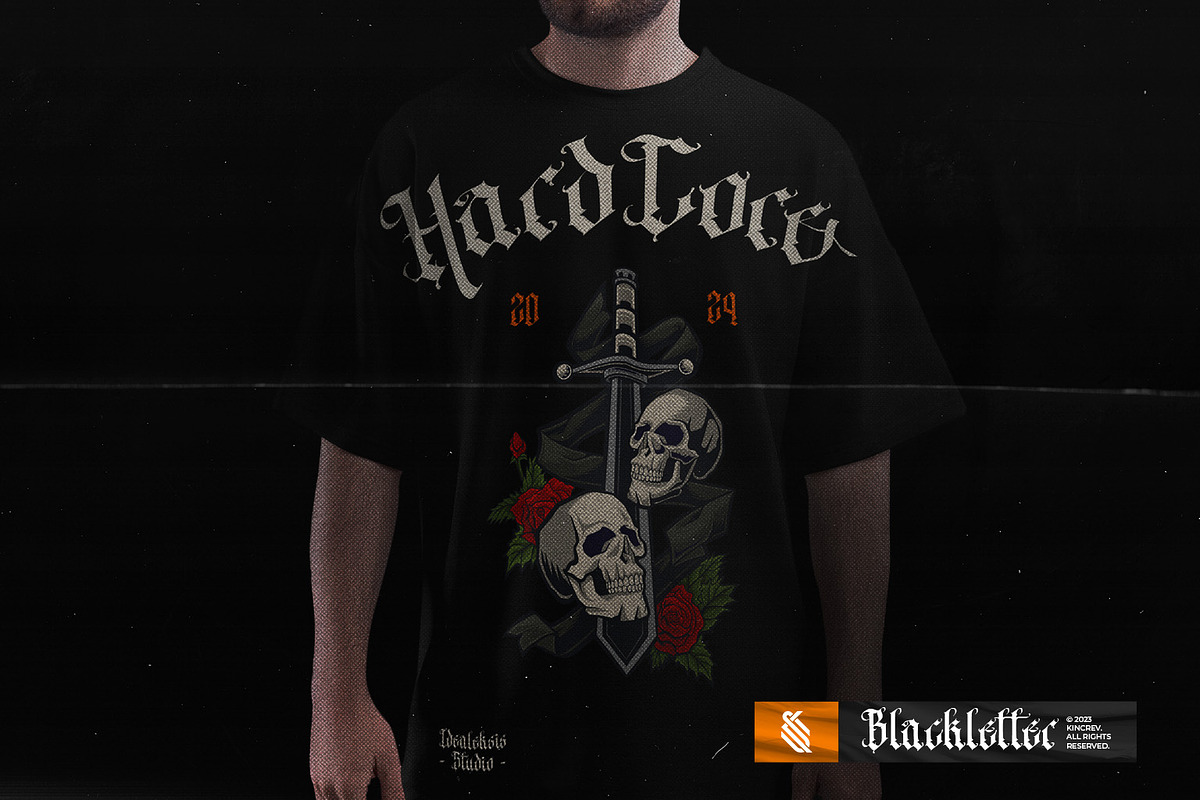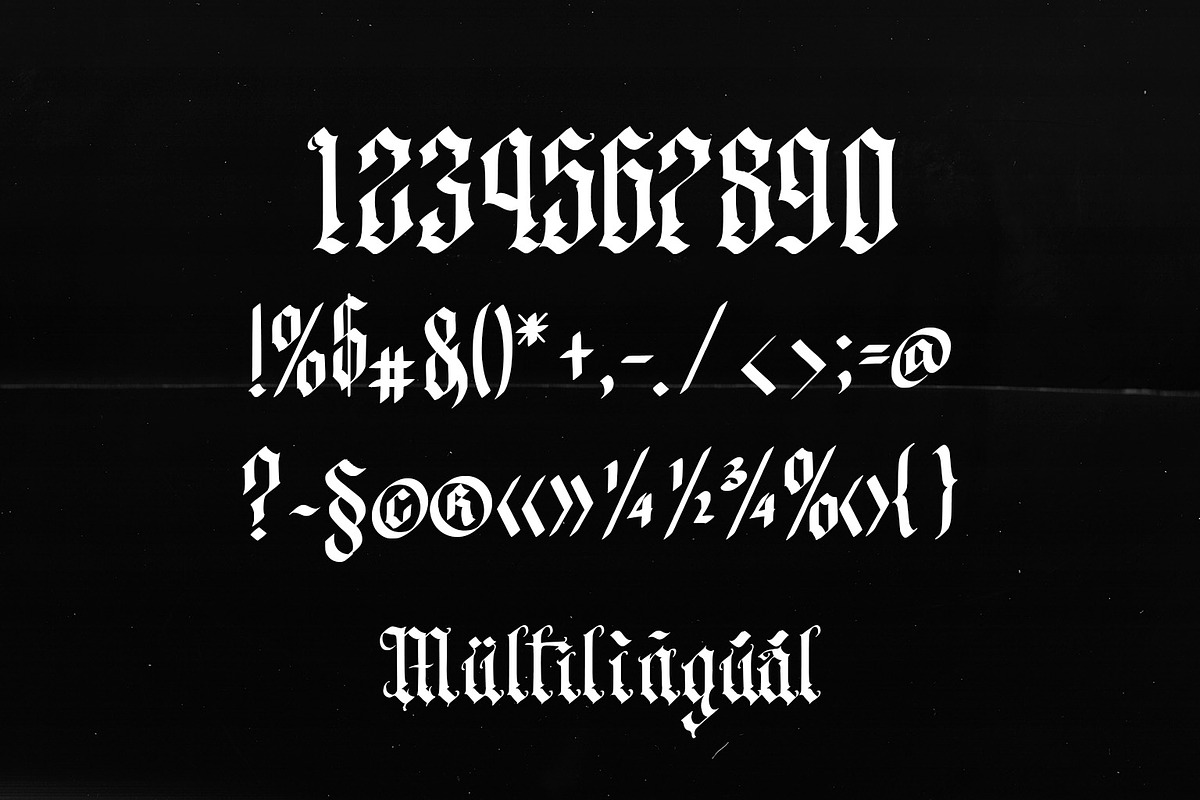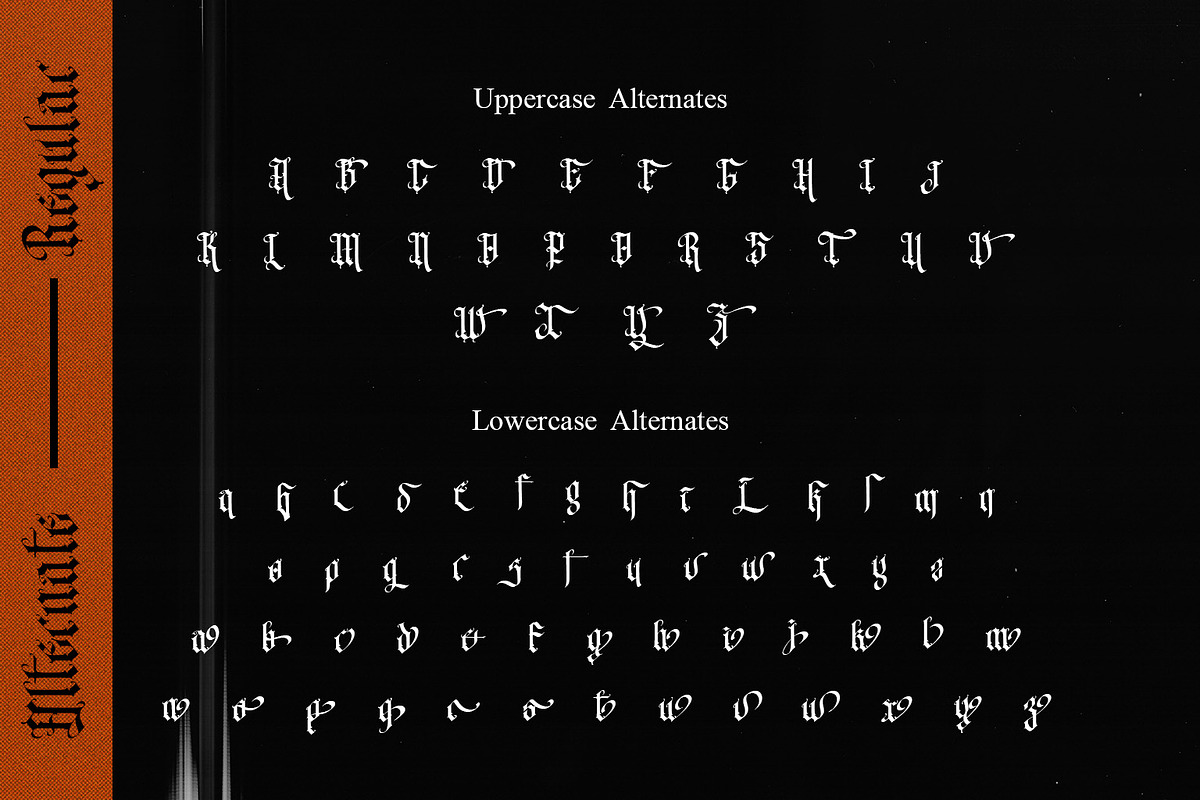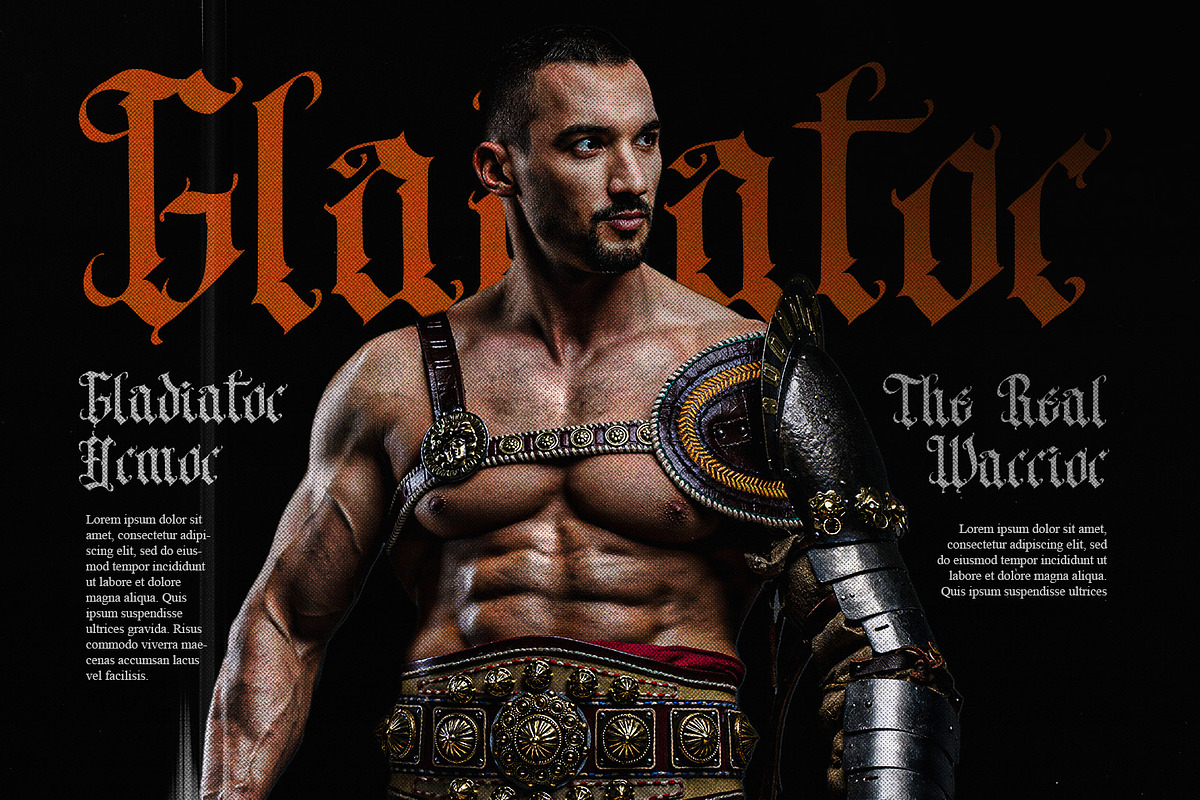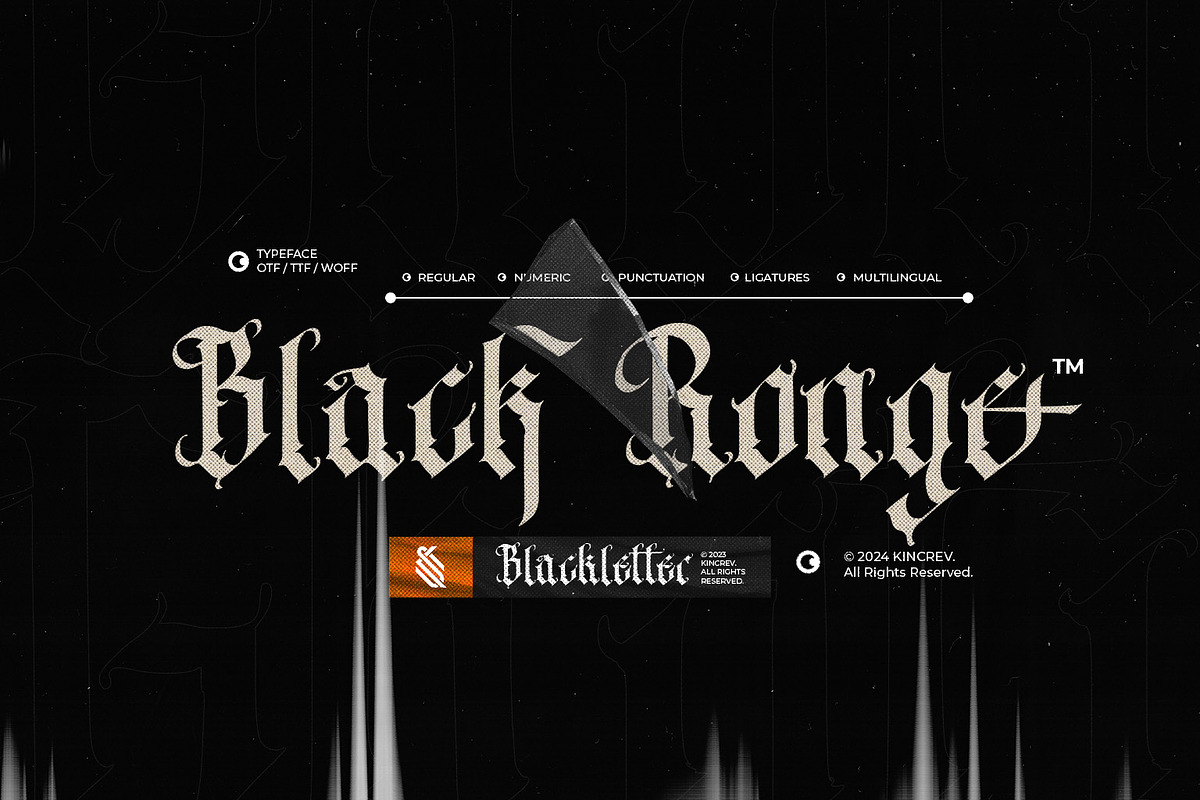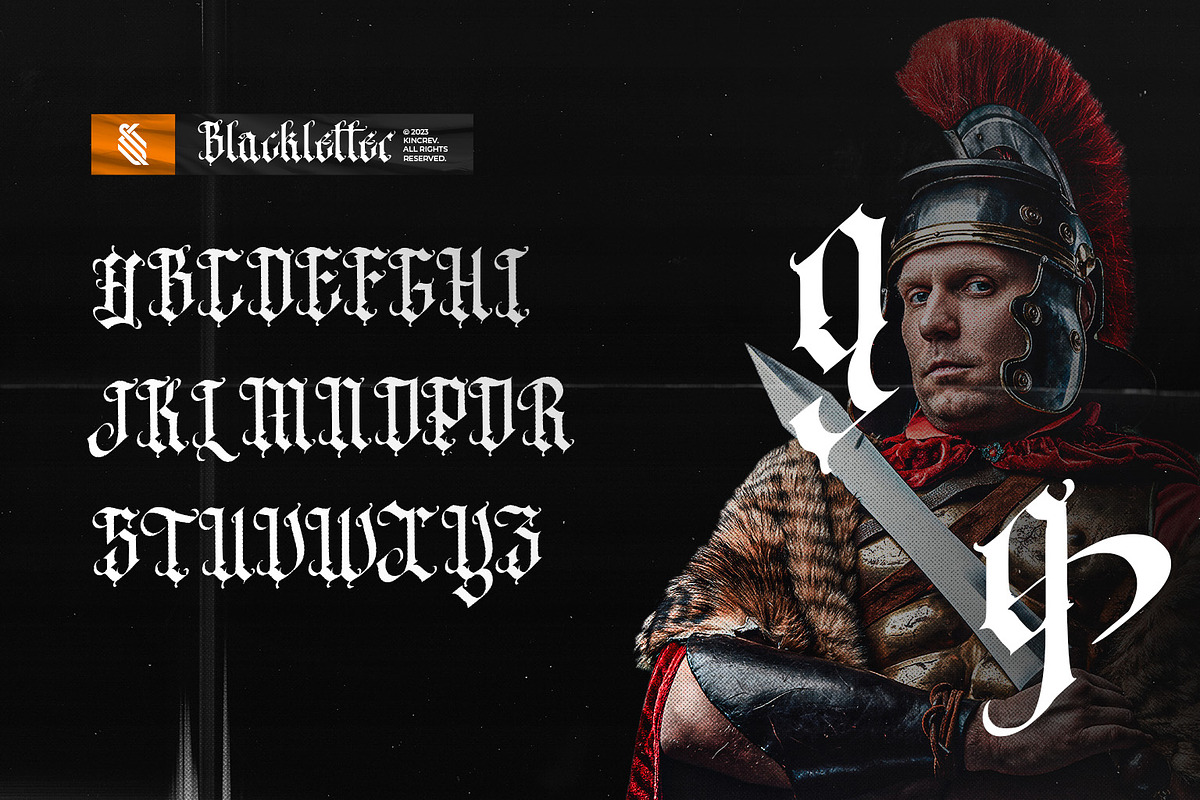
Black Ronge - Blackletter Font
Hello, Everyone! Ready to make your branding design outstanding? If you need to create a stylist, bold, and modern techno look for your business, work on a poster for an event, or whatever your projects are, BLACK RONGE - Blackletter Font is the perfect one for you.
BLACK RONGE, a Blackletter Font is font for you to get your designs with stylist, bold, and modern techno look. It is made in uppercase and lowercase letters which are easy on the eyes and nice to look at, and easy to read. This font is designed to bring your brandings to life and add a touch of modernity, fun and style.
BLACK RONGE fits for any design projects, such as posters, banners, logos, book covers, album covers, quotes, invitations, greeting cards, name cards, headings, printed products, merchandise, social media, etc. Find out more ways to use this font by taking a look at the font preview.